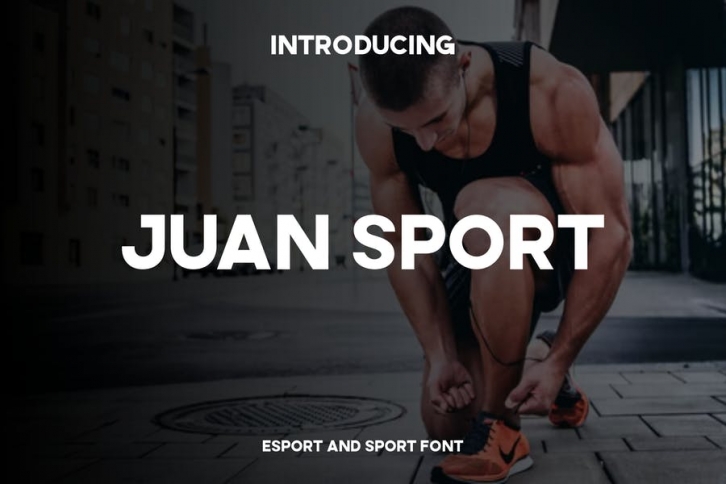
Juan is a new modern uppercase and lowercase typeface that always feels right in any case. The dimensions of the letters and the general sense are modern and contemporary but also retain a subtle functional touch of rational structure. The result is a unique, unorthodox typeface that is well suited for graphic design applications ranging from editorial and corporate design to web and interaction design.